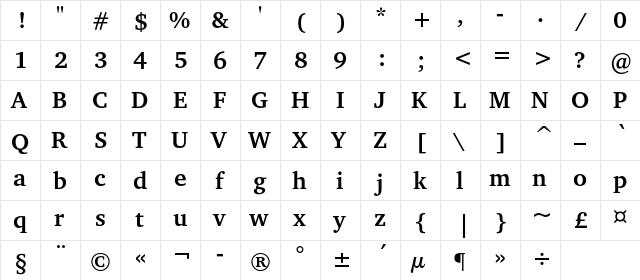
CharterC Bold
Design Context for CharterC Typeface
CharterC takes a measured approach to typography — its balanced proportions and neutral character make it a reliable workhorse for both digital and print work. The heavy weight commands attention and anchors typographic hierarchies.